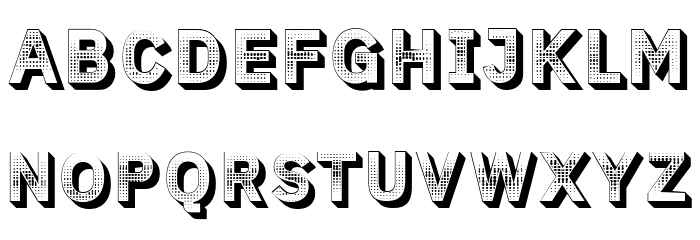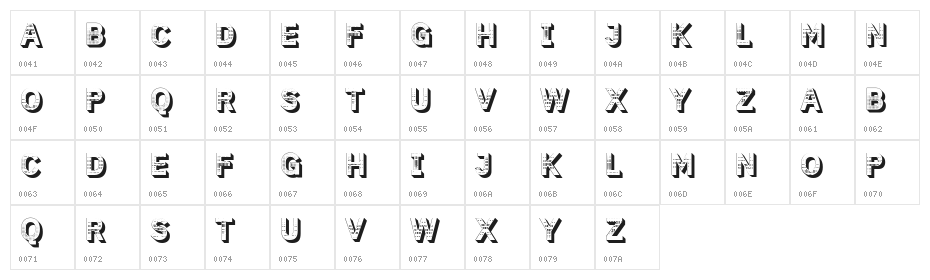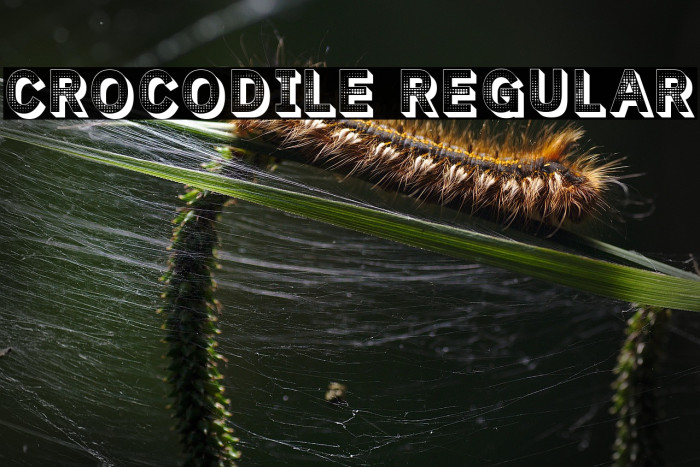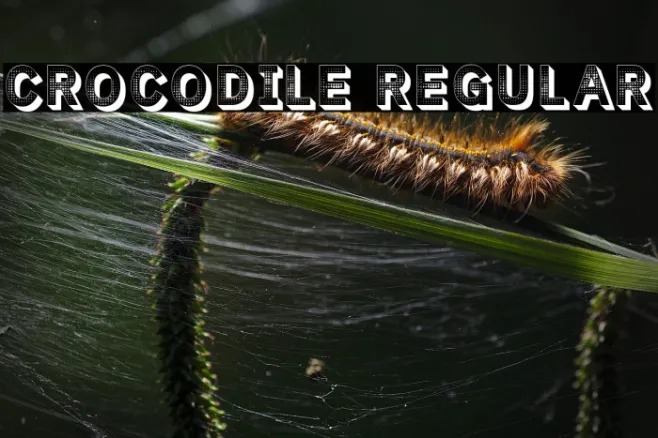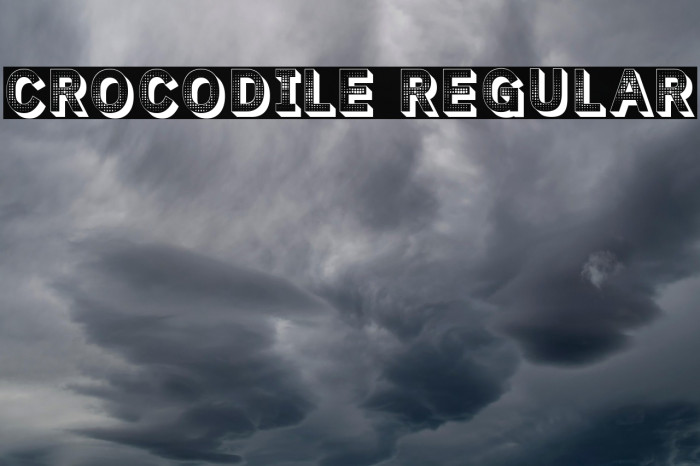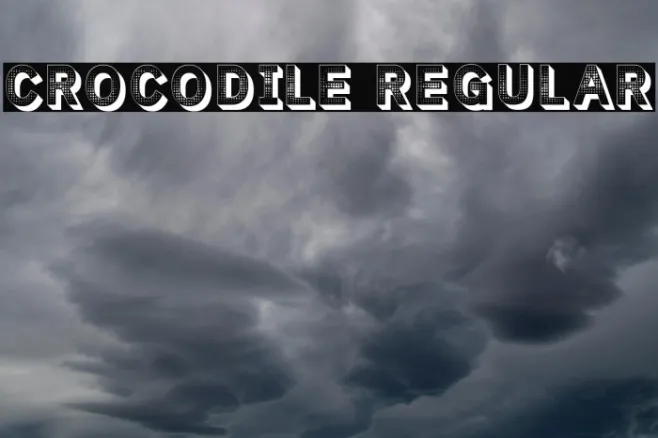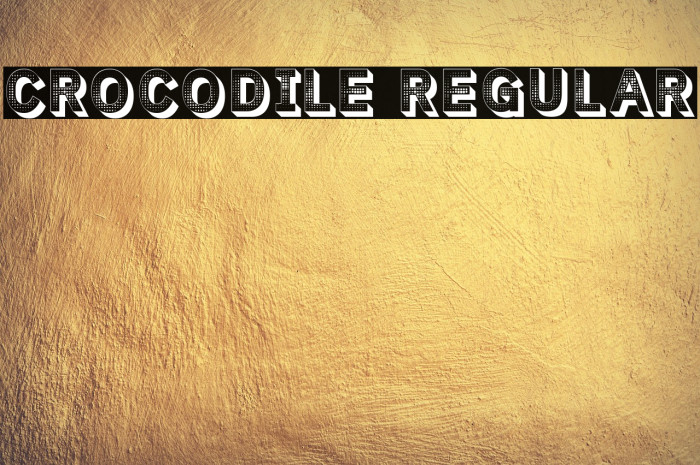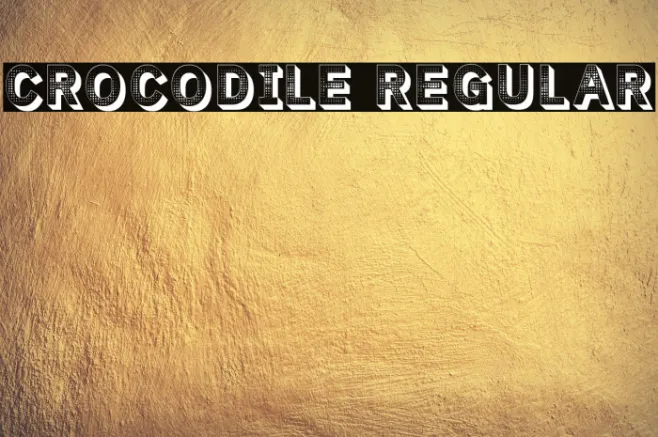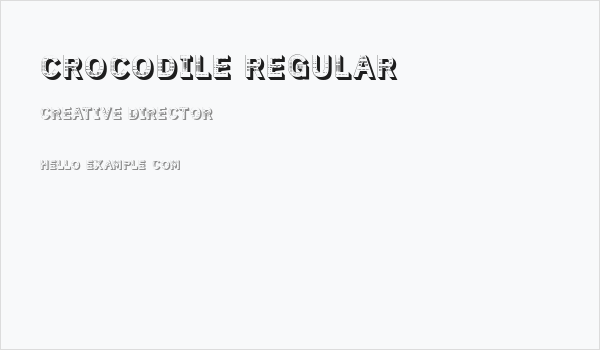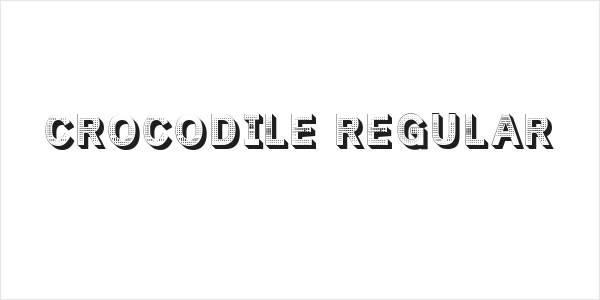
Crocodile Regular Font
Crocodile Regular Description
This font features a bold, three-dimensional style with a dotted texture filling each character. The letters are uppercase and have a shadow effect that gives them depth and a sense of movement. The design is playful and eye-catching, making it suitable for creative and dynamic projects. The font's structure is solid and geometric, with consistent stroke widths that enhance its bold appearance. The dotted pattern within each letter adds a unique texture, making it stand out in any design. The overall style is modern and decorative, perfect for making a statement.
| Proposed Projects | Ideal for posters, headlines, logos, and any design needing a bold, eye-catching font. |